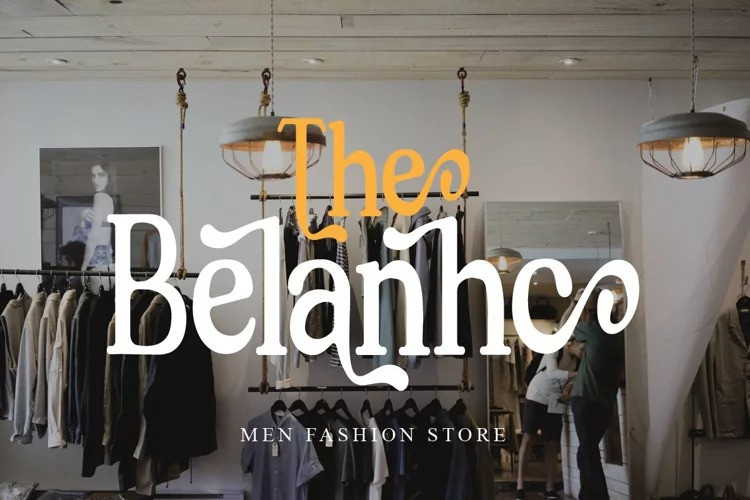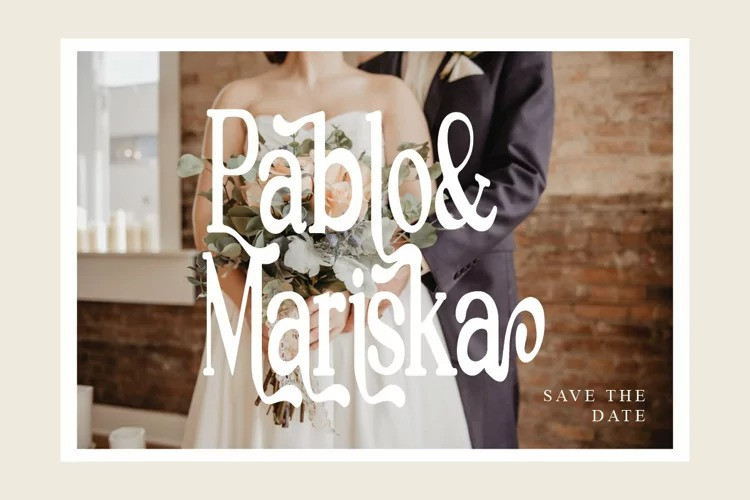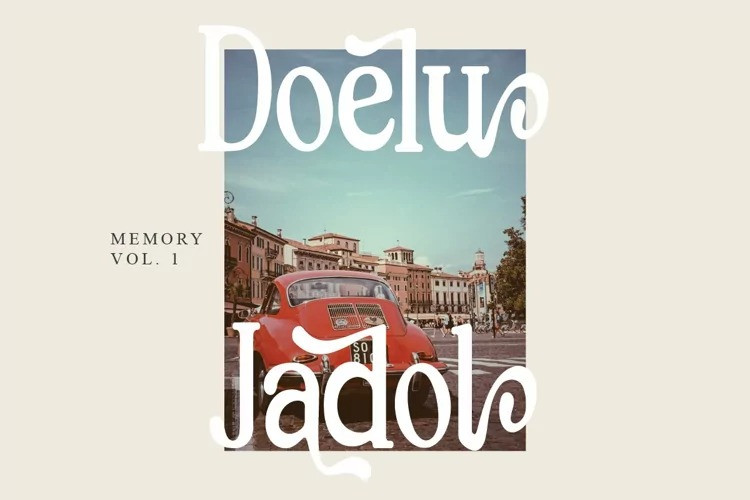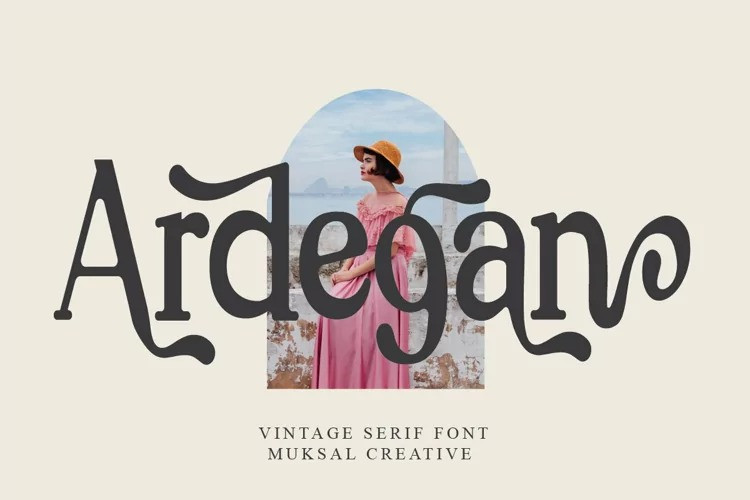
Ardegan Font
Ardegan Serif Font
This is a hand lettered serif font with slightly imperfect lines. It’s designed and shared by Muksalmina. Looks cool on various designs that require style such as wedding invitations, greeting cards, logos, fashion, photography, and so on. Ardegan The scenes are PUA coded which means you can access all the glyphs and sweeps with ease!